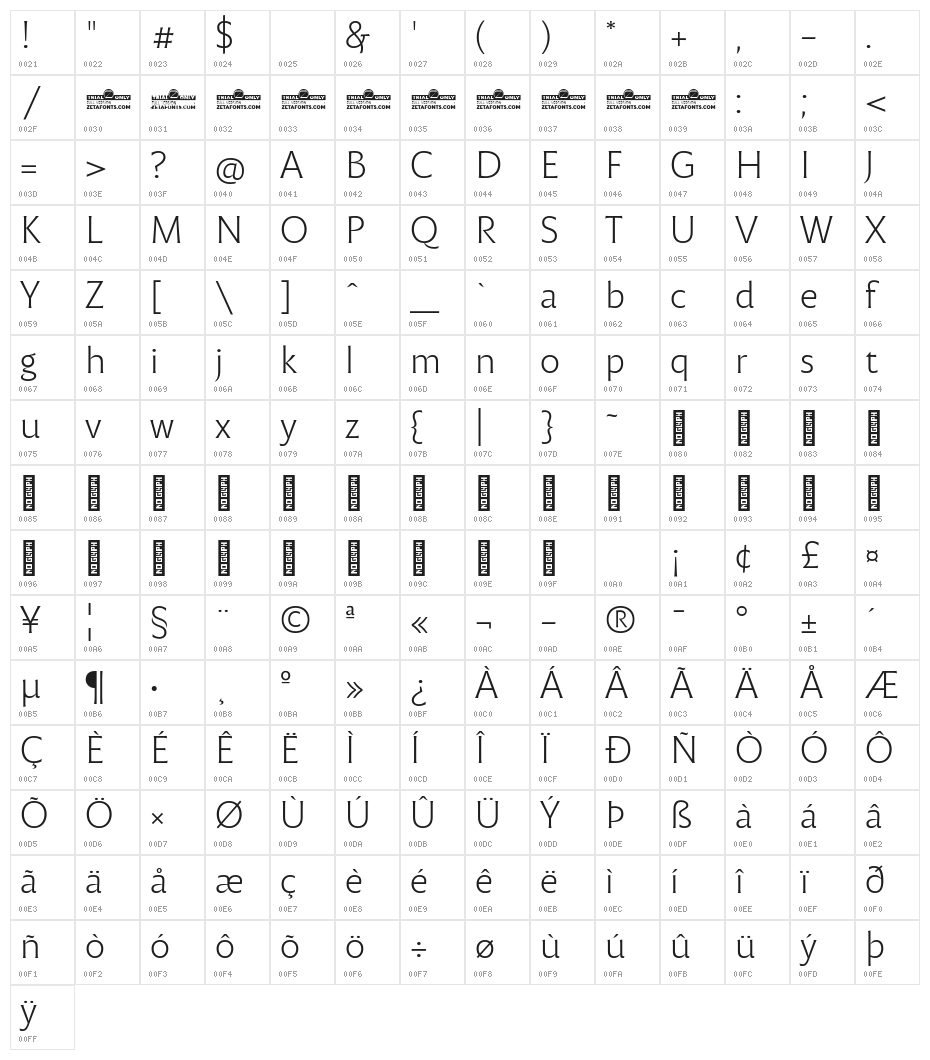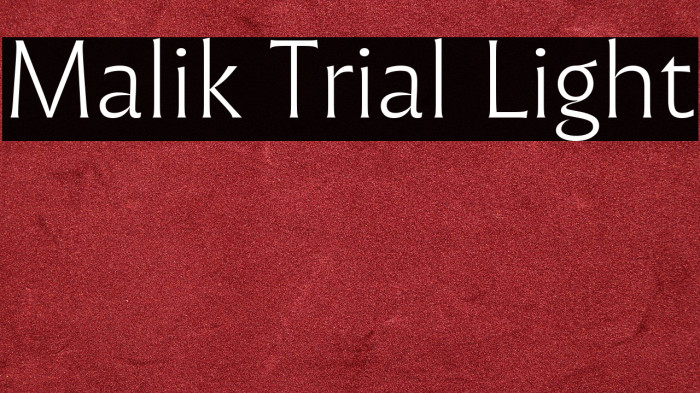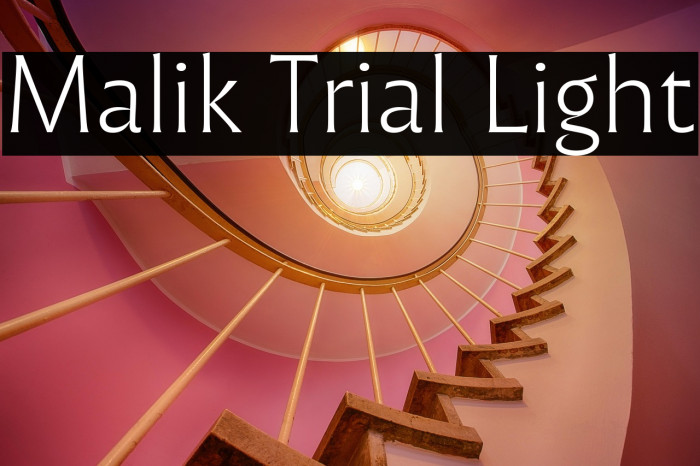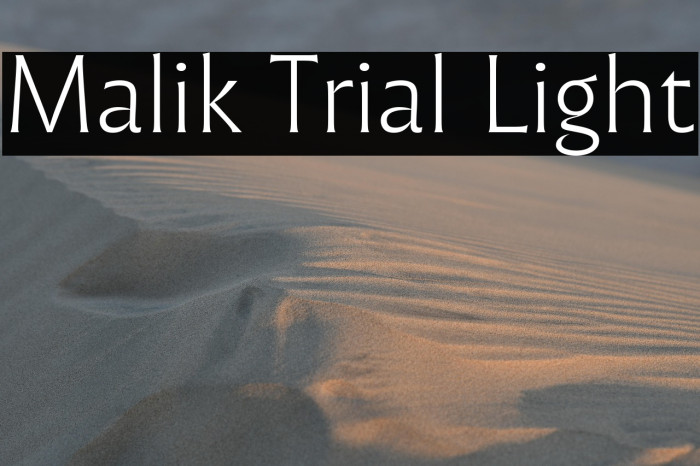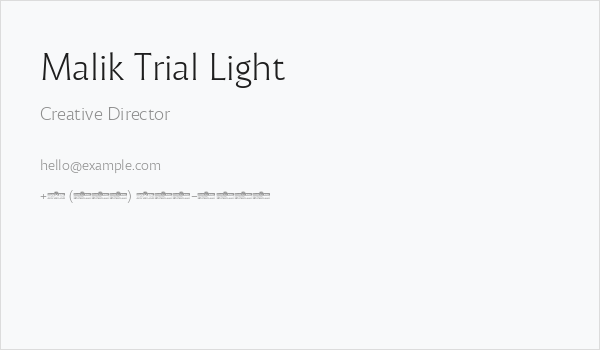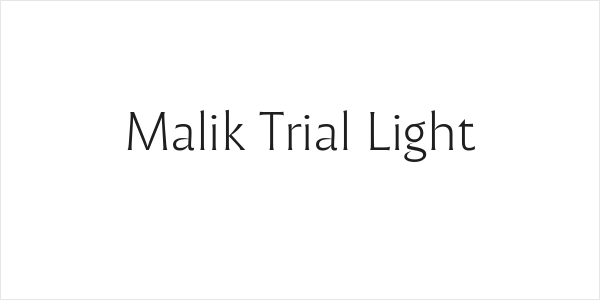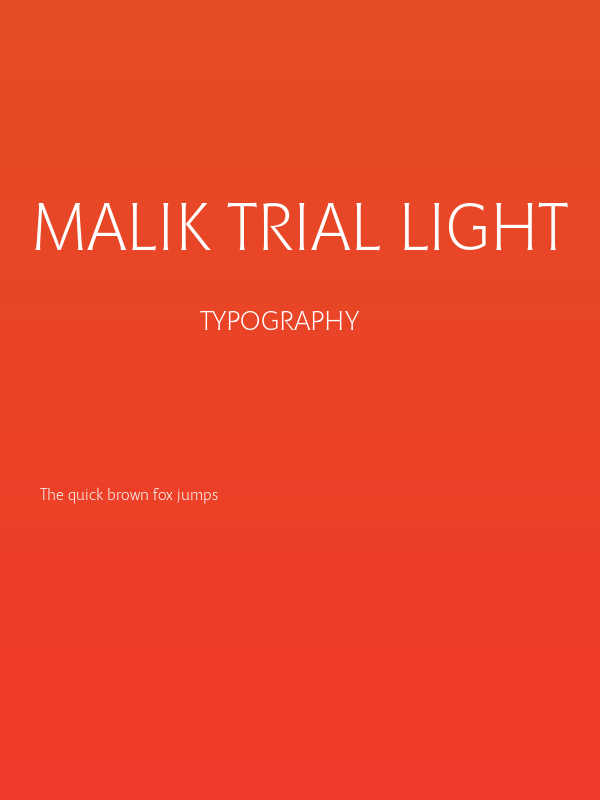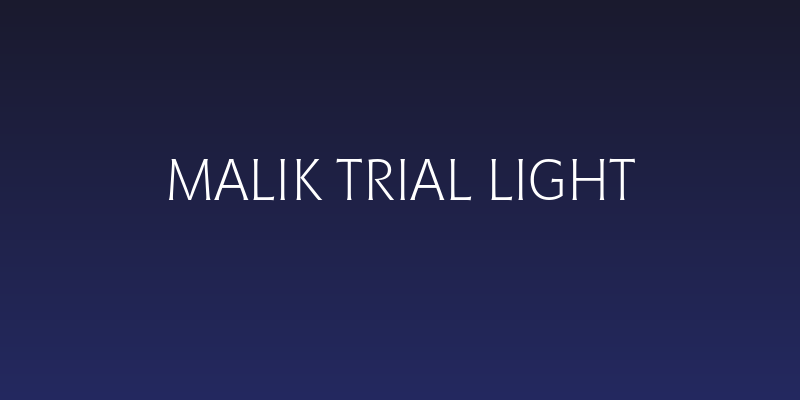
Malik Trial Light Font
Malik Trial Light Description
This font features a clean and elegant design with a modern serif style. The characters are well-proportioned, offering a harmonious balance between thick and thin strokes, which gives it a sophisticated appearance. The uppercase letters are tall and commanding, while the lowercase letters maintain a smooth and flowing form. The numerals are clear and easy to read, making them suitable for various applications. The special characters are distinct and well-integrated into the overall design, ensuring versatility in usage. This font's refined aesthetic makes it ideal for projects that require a touch of elegance and professionalism.